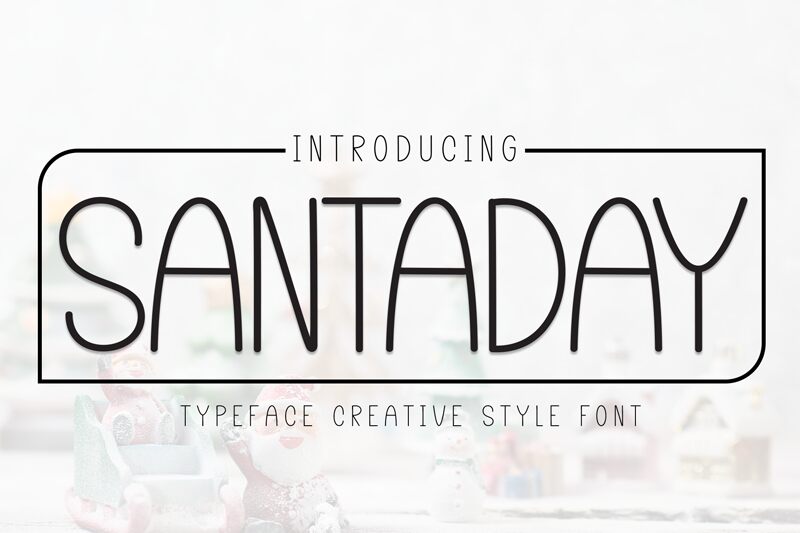
Santaday font
Santaday
This is a sweet and friendly handwritten display font. Cute and fun, this font is ideal for writing wedding invitations, cards, or any other design that requires a playful touch!